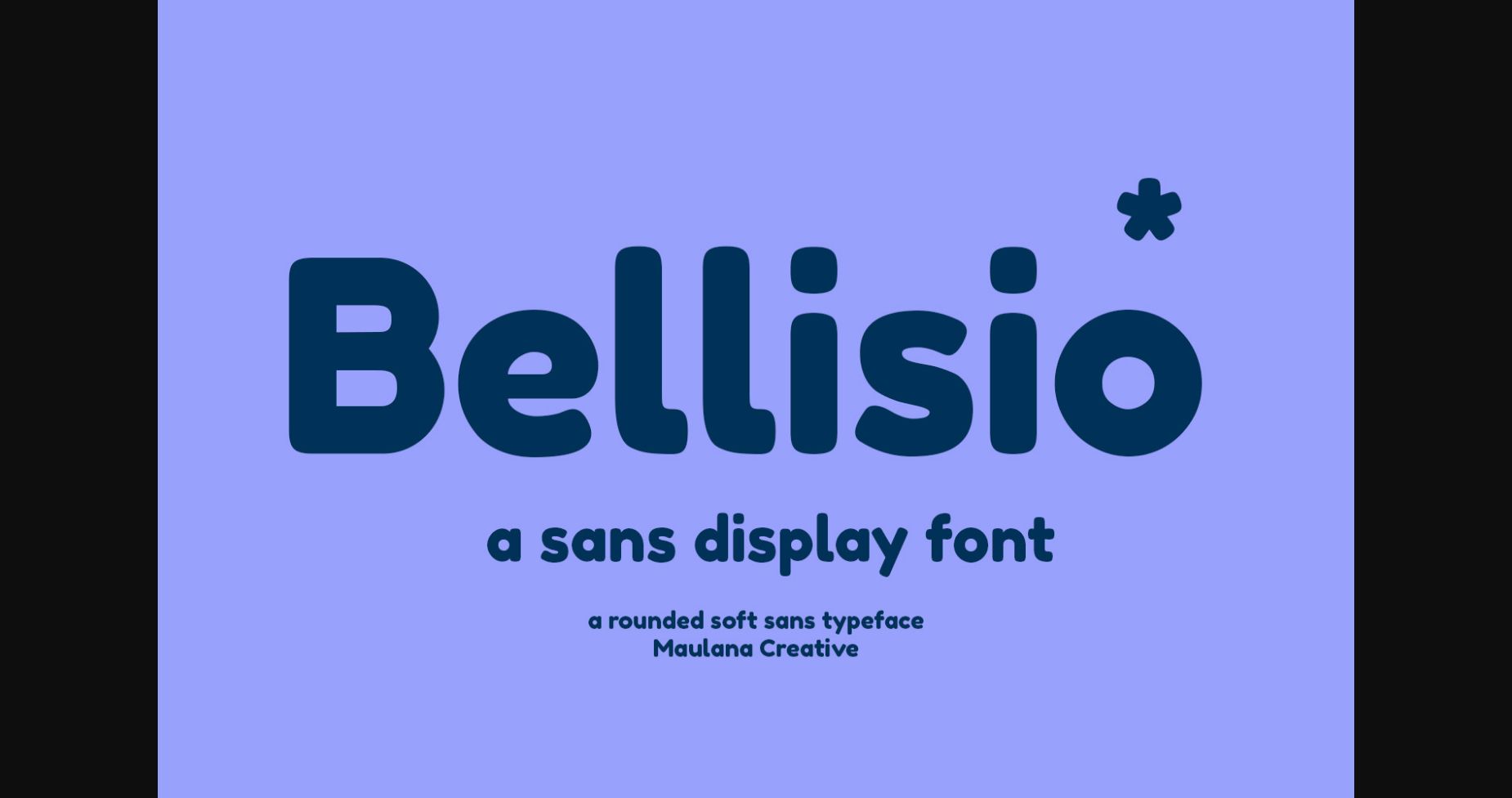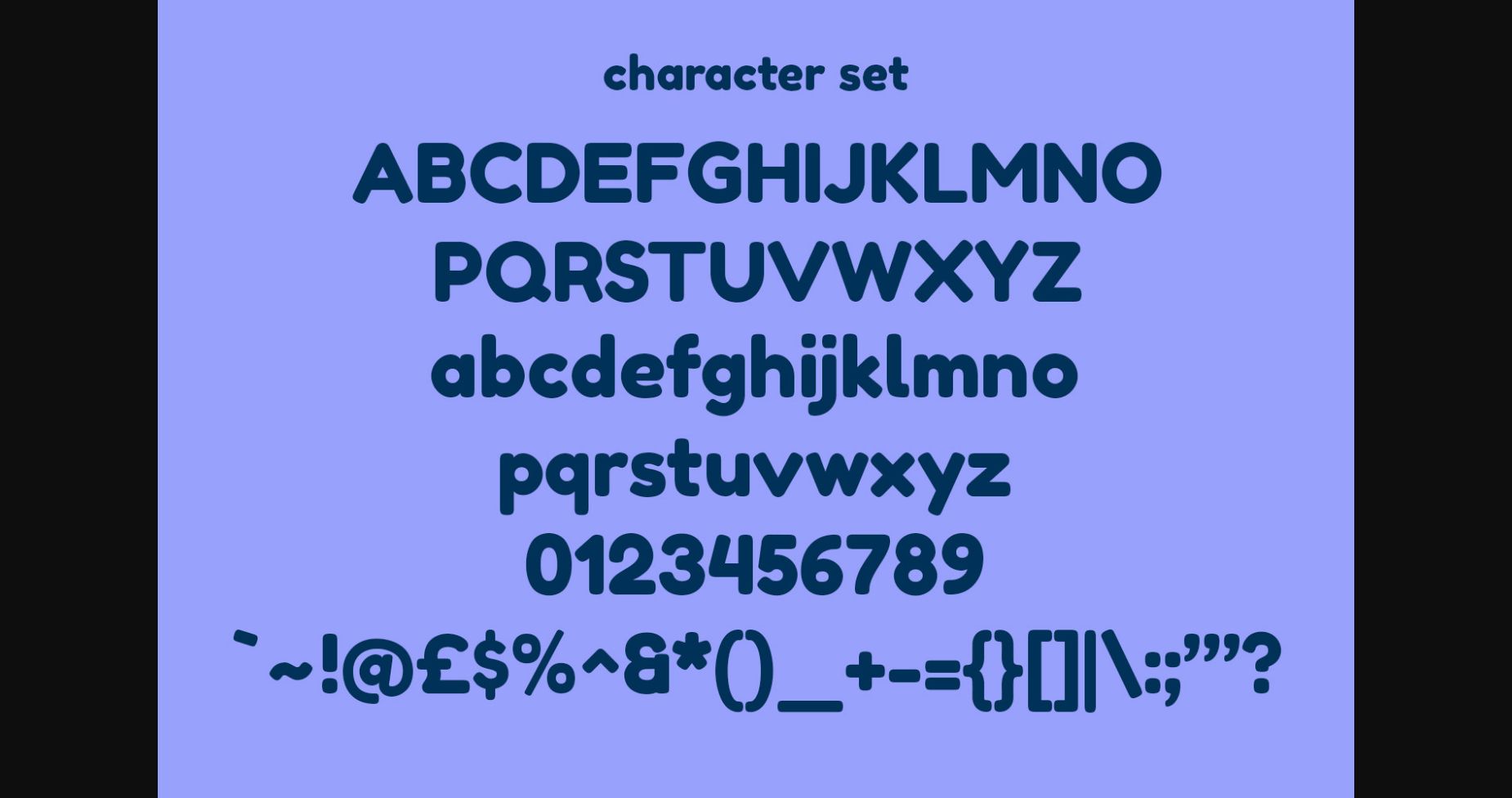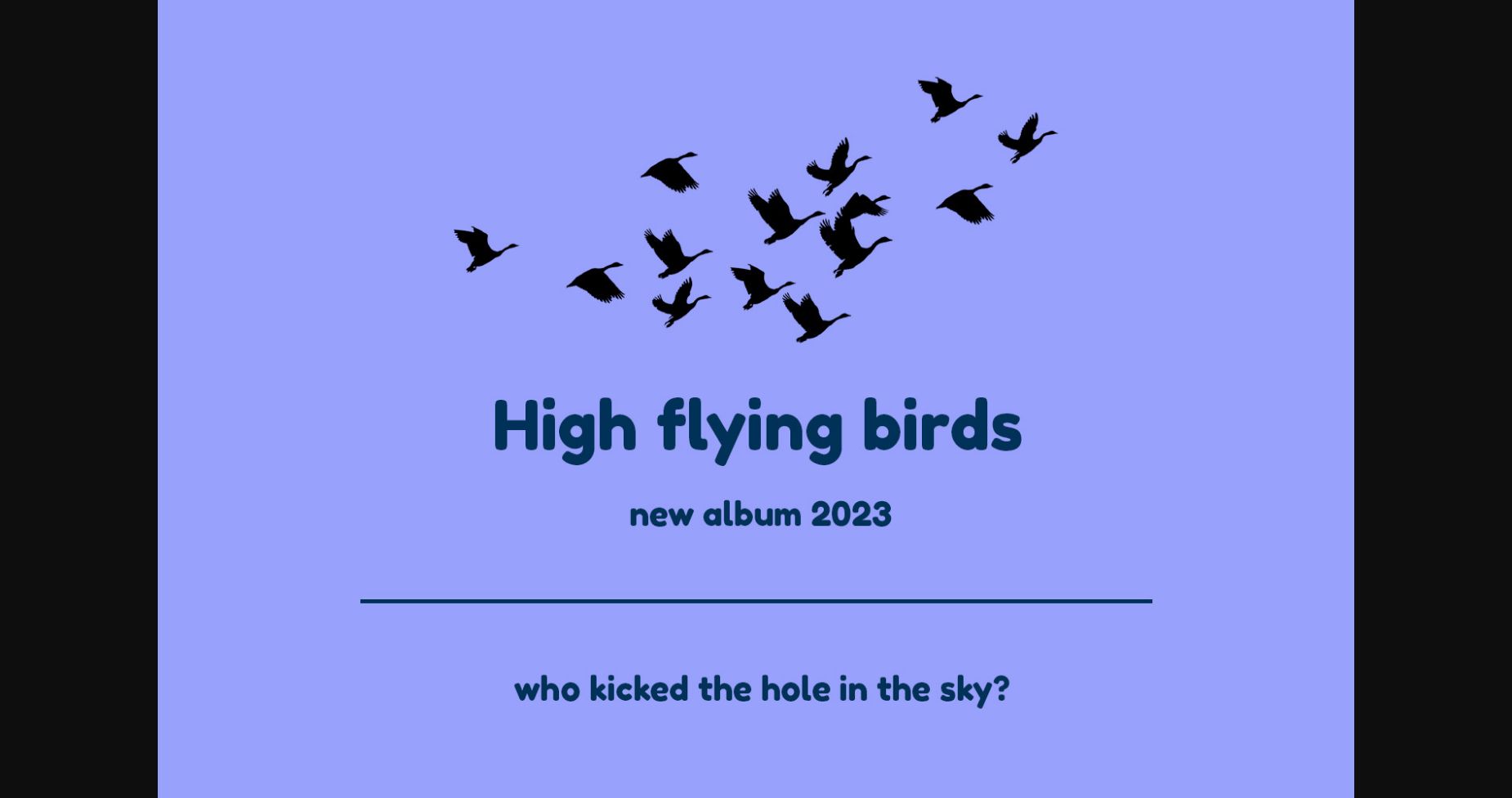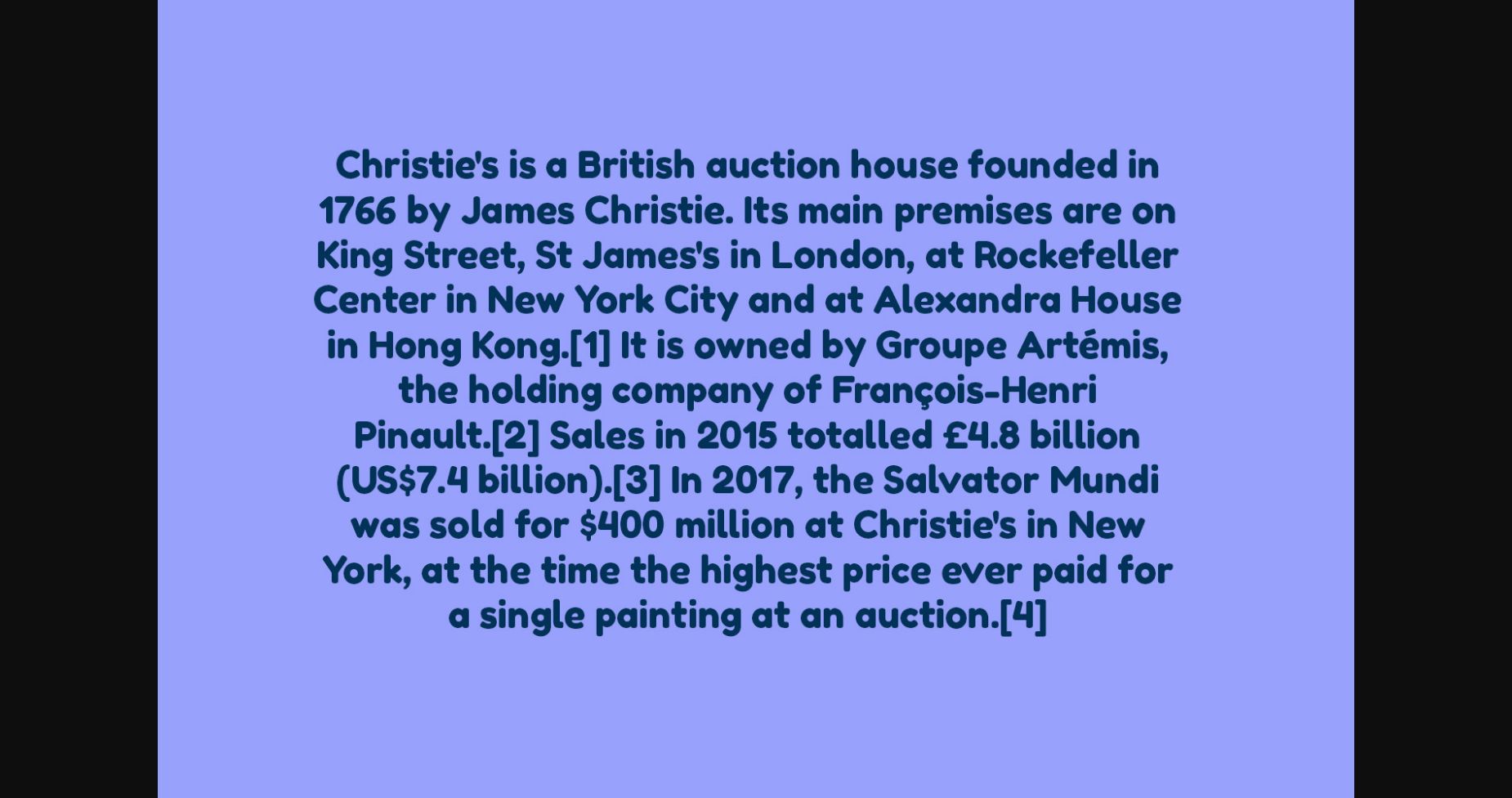
About Belissio Font
Belissio is a soft rounded edge sans derif font. It is ideal for logo design, social media, movie and book titles, invitations, business cards, web design and more.